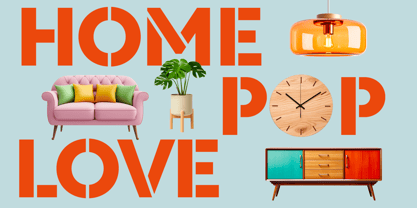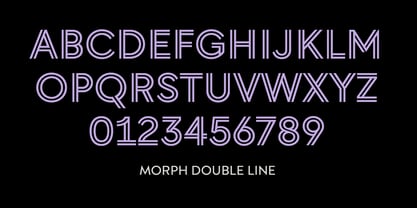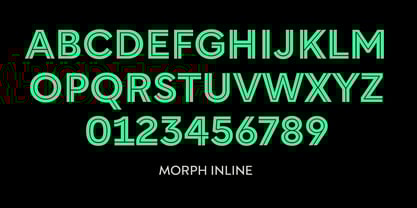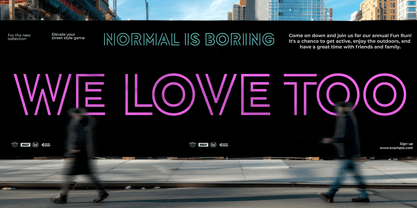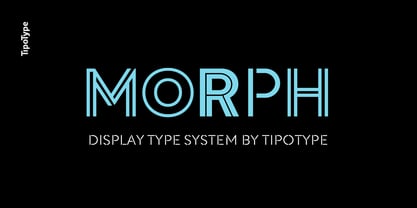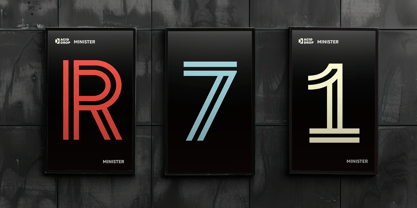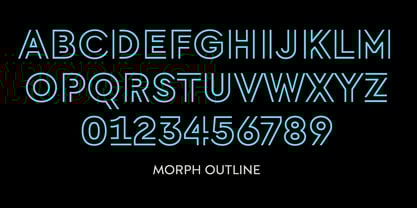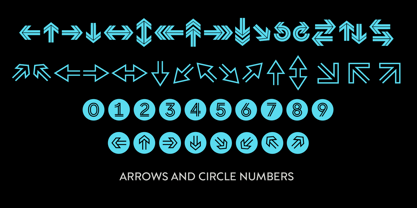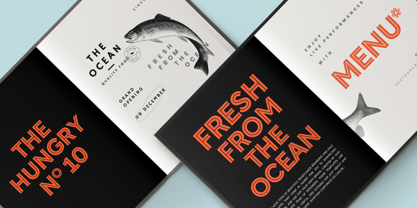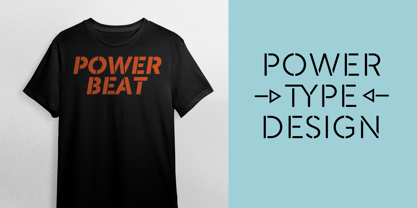
Morph
par TipoType
La famille de polices Morph a été conçue par Tipotype Team et publiée par TipoType. Morph contient 14 styles et options de package familial.
Morph is a display type system ideal for creating typographic identity and impact in posters, titles, packaging, and any situation that calls for a clear, striking, and unique message. Its versatile, modern, and clean character builds communication that is both contemporary and sophisticated.
Each variant consists of over 500 glyphs, multiple numeral styles, an extensive set of arrows, and stylistic alternates, making Morph a broad and robust type system.